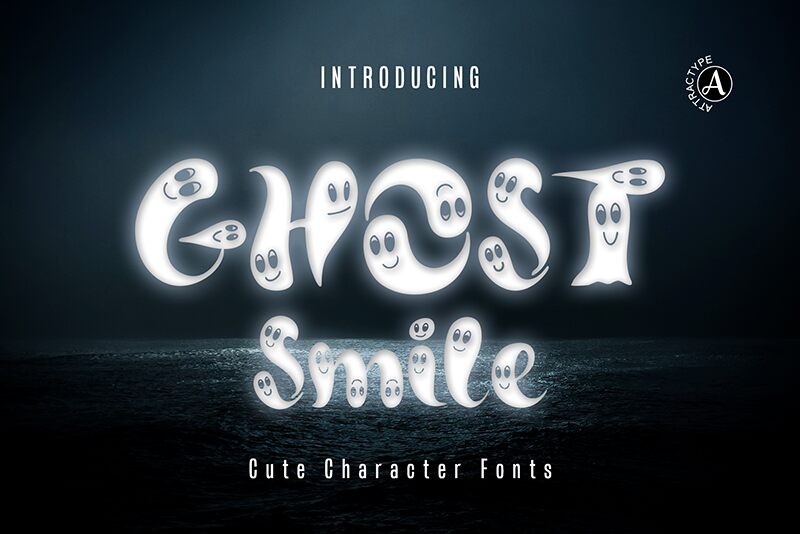
Ghost Smile font by Attractype is a holiday free font, a perfect fit for the spooky season. This playful typeface features cute ghostly-themed characters that are not scary at all. In fact, they will make anyone wearing a t-shirt with sentences written in this font smile. Expect a highly decorated single style handwriting with an expressive personality.
Due to its heavy and chaotic appearance, this font is better used in short texts such as headings, social media captions, posters, and banners. Stock graphics like Halloween greeting cards, invitations, and stickers are a few other great ideas.